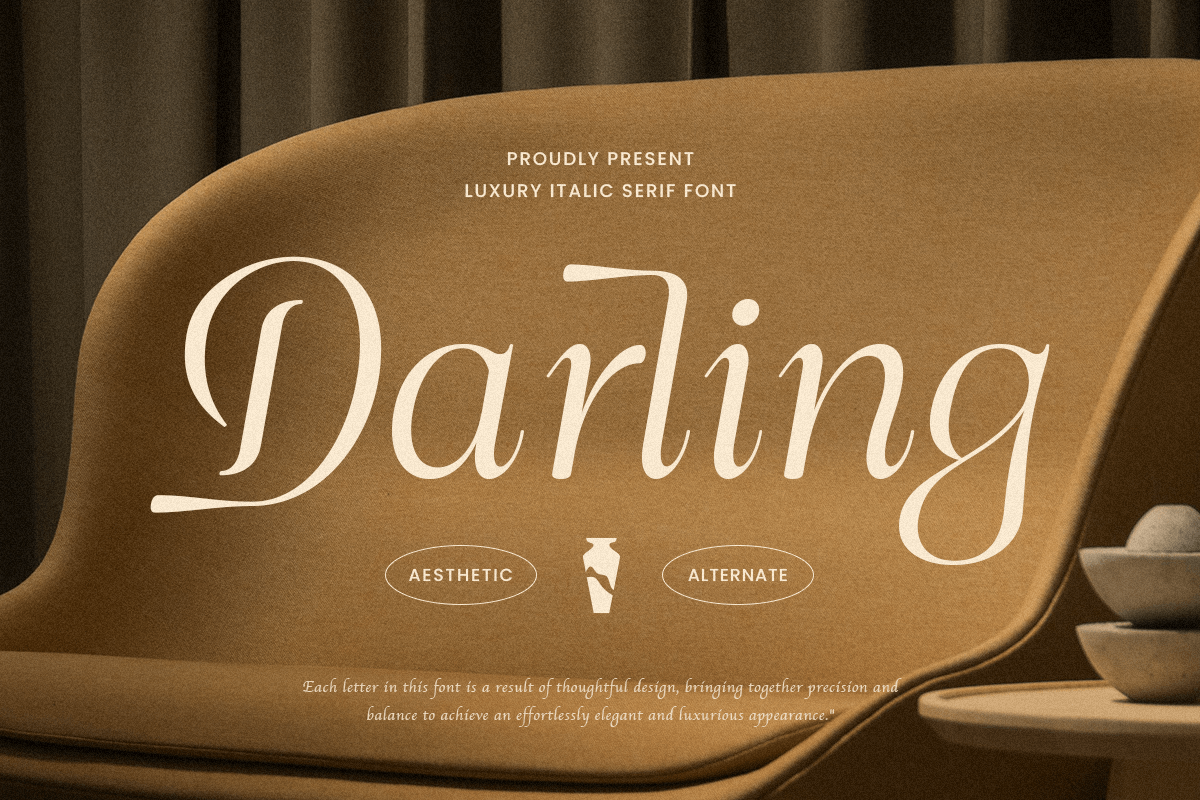
Darling
-Luxury Italic Serif Font
Darling - Luxury Italic Serif Font
Darling is a luxury italic serif font crafted to convey sophistication and charm. Its delicate curves and refined slant evoke a sense of timeless beauty, making it perfect for high-end design projects.
Versatile for Chic and Premium Designs
Ideal for branding, wedding invitations, logos, and editorial layouts, Darling elevates your creations with its luxurious and stylish appeal. Its unique character ensures your designs stand out.
A Marriage of Tradition and Contemporary Flair
Darling blends the classic elegance of serif fonts with a modern italic twist. This versatile typeface brings both tradition and innovation to your design toolkit, enhancing every project with a touch of class.